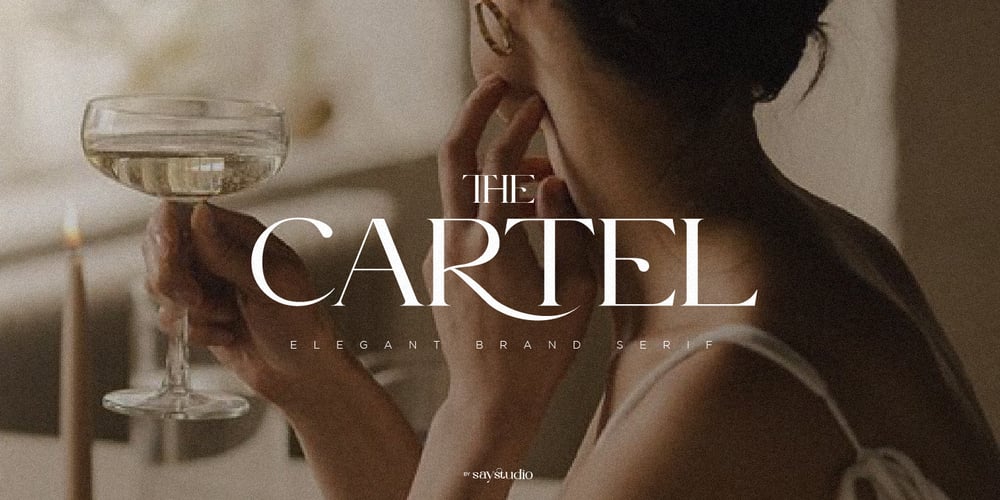
The Cartel Font Family was designed by Mussyayin and published by Say Studio. The Cartel contains 2 styles and family package options. About the ProductThe Cartel is a elegant serif font . This typeface has been made carefully to make sure its premium quality and luxury feel. The ligatures makes this typeface unique and stands out rather than the regular serif font. Very suitable for logo, headline, tittle, and the other various formal forms such as invitations, labels, logos, magazines, books, greeting / wedding cards, packaging, fashion, make up, stationery, novels, labels or any type of advertising purpose.Features :numbers and punctuationmultilingualligaturesalternatesPUA encodedFAQ’s :Where are the TTF’s? They are included in a download link( in a text file) in your main download file. 1 user 2 computers installation (Desktop License) You may NOT use for broadcast or Cinema/Motion Picture. You may NOT resell this font in any platform without further permission from designer. Do NOT embed font files in app/game/e-pub (for desktop license) You may NOT use the fonts in templates for sale/free. ( web/print/app ) For other license use please contact us.SOFTWARE REQUIREMENTS :Fonts and alternate : No special software required they may be used in any basic program /website apps that allows standard fonts That’s it folks! You can go ahead and get cracking :)Follow My Shop For Upcoming Updates Including Additional Glyphs And Language Support. And Please Message Me If You Want Your Language Included or If There Are Any Features or Glyph Requests, Feel Free to Send me A Message. Have a Good Day !